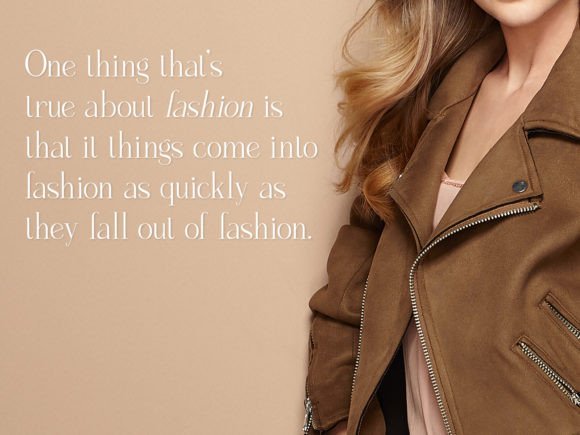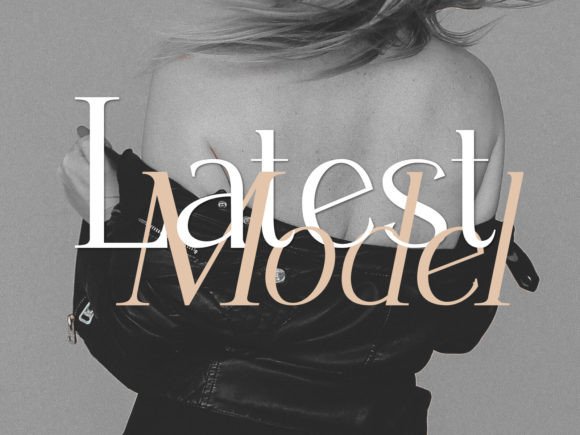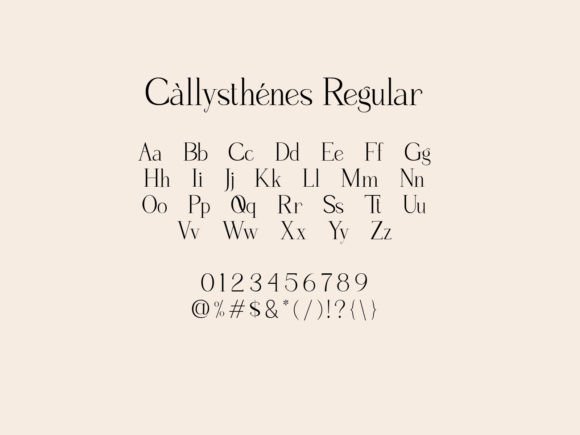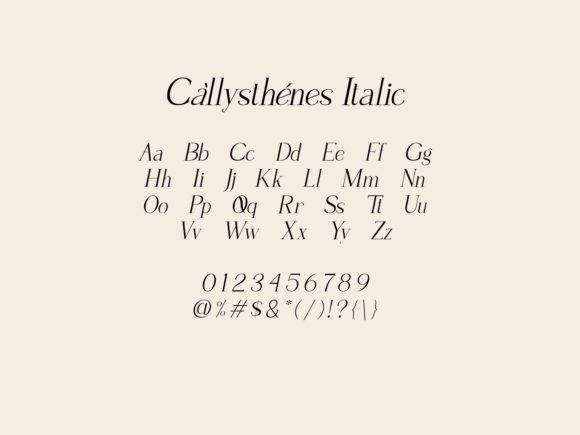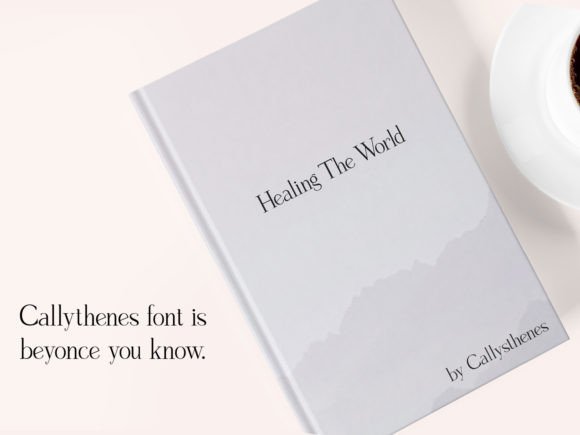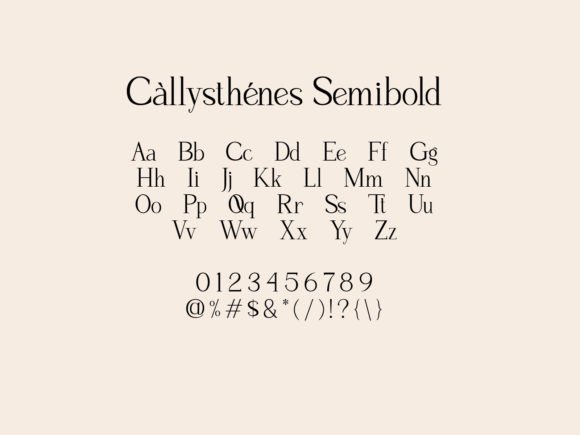
Introducing Callysthenes Font: A Professional and Modern Typeface for Creative Projects
In the world of typography, a font can make or break the visual appeal of a design project. If you’re a designer or crafter looking for a fresh, elegant, and stylish typeface to elevate your creative endeavors, look no further than the Callysthenes Font. This professional and modern font is perfect for a wide range of applications, from logos and cards to apparel, printed products, invitations, product packaging, letterhead, magazines, books, and more.
The Origins of Callysthenes Font
The word “Callysthenes” is derived from Callisthenes, a Greek historian from Macedon who had connections to both Aristotle and Alexander the Great. This rich history and cultural significance make the Callysthenes Font a unique and distinctive choice for designers and crafters looking to add a touch of sophistication and elegance to their work.
Key Features of Callysthenes Font
The Callysthenes Font boasts a range of key features that make it an ideal choice for creative projects. Some of its notable features include:
- Modern and Fresh Design: The Callysthenes Font features a modern and fresh design that is perfect for designers and crafters looking to create visually appealing and stylish designs.
- Elegant and Sophisticated: The font’s elegant and sophisticated style makes it ideal for projects that require a touch of luxury and refinement.
- Highly Versatile: The Callysthenes Font is highly versatile and can be used for a wide range of applications, from logos and branding to print materials and digital designs.
- Easy to Read: The font is easy to read, making it perfect for body text, headlines, and titles.
Uses of Callysthenes Font
The Callysthenes Font is perfect for a wide range of creative projects, including:
- Logos and Branding: Create a professional and stylish logo for your business or brand with the Callysthenes Font.
- Cards and Invitations: Design beautiful and elegant cards and invitations for special occasions, such as weddings, birthdays, and holidays.
- Apparel and Merchandise: Create stylish and eye-catching apparel and merchandise, such as t-shirts, mugs, and tote bags.
- Printed Products: Design professional and visually appealing printed products, such as brochures, flyers, and posters.
- Product Packaging: Elevate your product packaging with the Callysthenes Font, making it stand out on store shelves.
- Letterhead and Stationery: Create professional and stylish letterhead and stationery for your business or brand.
- Magazines and Books: Use the Callysthenes Font for magazine and book titles, headings, and body text.
Why Choose Callysthenes Font?
So, why choose the Callysthenes Font for your creative projects? Here are just a few reasons:
- Unique and Distinctive: The Callysthenes Font is a unique and distinctive typeface that will set your designs apart from the crowd.
- High-Quality Design: The font is designed to high standards, ensuring that it looks professional and stylish in any design.
In conclusion, the Callysthenes Font is a professional and modern typeface that is perfect for creative projects. Its elegant and sophisticated style, combined with its versatility and ease of use, make it an ideal choice for designers and crafters looking to elevate their designs. Whether you’re creating logos, cards, apparel, or printed products, the Callysthenes Font is sure to impress.